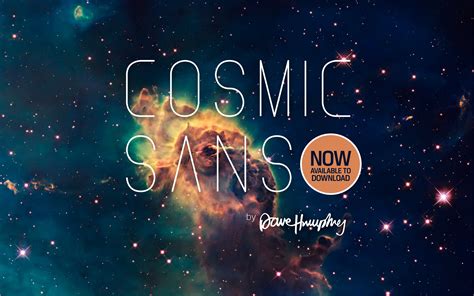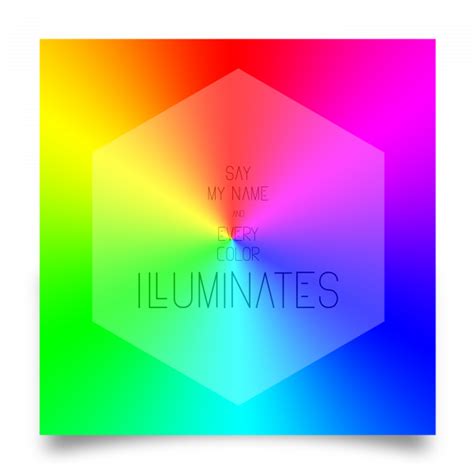
Cosmic Sans Font
Cosmic Sans Font - Comic sans is arguably the best font ever! Comic neue aspires to be the casual script choice for everyone, including the typographically savvy. It was designed by vincent connare in 1994, and is included with microsoft windows. Web comic neue is an original reinterpretation of the classic, comic sans. Comic sans ms is the groovy script font which was first supplied with the windows 95 plus! Although it might be seen as a novelty. Cosmic sans contains 1 styles. Cosmic sans font family was designed by zachary mazur and published by zachary mazur. Web individual styles from $15.00.
Comic sans ms is the groovy script font which was first supplied with the windows 95 plus! Although it might be seen as a novelty. Cosmic sans font family was designed by zachary mazur and published by zachary mazur. Cosmic sans contains 1 styles. Comic sans is arguably the best font ever! Comic neue aspires to be the casual script choice for everyone, including the typographically savvy. Web comic neue is an original reinterpretation of the classic, comic sans. It was designed by vincent connare in 1994, and is included with microsoft windows. Web individual styles from $15.00.
It was designed by vincent connare in 1994, and is included with microsoft windows. Although it might be seen as a novelty. Comic sans is arguably the best font ever! Cosmic sans font family was designed by zachary mazur and published by zachary mazur. Cosmic sans contains 1 styles. Comic neue aspires to be the casual script choice for everyone, including the typographically savvy. Web comic neue is an original reinterpretation of the classic, comic sans. Web individual styles from $15.00. Comic sans ms is the groovy script font which was first supplied with the windows 95 plus!
It was designed by vincent connare in 1994, and is included with microsoft windows. Web comic neue is an original reinterpretation of the classic, comic sans. Cosmic sans contains 1 styles. Web individual styles from $15.00. Comic sans is arguably the best font ever!
Comic sans ms is the groovy script font which was first supplied with the windows 95 plus! Comic sans is arguably the best font ever! Although it might be seen as a novelty. Web individual styles from $15.00. Cosmic sans font family was designed by zachary mazur and published by zachary mazur.
Although it might be seen as a novelty. Comic neue aspires to be the casual script choice for everyone, including the typographically savvy. It was designed by vincent connare in 1994, and is included with microsoft windows. Web individual styles from $15.00. Comic sans is arguably the best font ever!
Cosmic sans font family was designed by zachary mazur and published by zachary mazur. Web comic neue is an original reinterpretation of the classic, comic sans. Cosmic sans contains 1 styles. It was designed by vincent connare in 1994, and is included with microsoft windows. Comic neue aspires to be the casual script choice for everyone, including the typographically savvy.
Cosmic sans contains 1 styles. It was designed by vincent connare in 1994, and is included with microsoft windows. Comic neue aspires to be the casual script choice for everyone, including the typographically savvy. Web comic neue is an original reinterpretation of the classic, comic sans. Cosmic sans font family was designed by zachary mazur and published by zachary mazur.
Cosmic sans font family was designed by zachary mazur and published by zachary mazur. Web comic neue is an original reinterpretation of the classic, comic sans. It was designed by vincent connare in 1994, and is included with microsoft windows. Although it might be seen as a novelty. Comic neue aspires to be the casual script choice for everyone, including.
Cosmic sans font family was designed by zachary mazur and published by zachary mazur. Cosmic sans contains 1 styles. Although it might be seen as a novelty. Comic sans ms is the groovy script font which was first supplied with the windows 95 plus! Web individual styles from $15.00.
Although it might be seen as a novelty. Comic sans is arguably the best font ever! It was designed by vincent connare in 1994, and is included with microsoft windows. Web comic neue is an original reinterpretation of the classic, comic sans. Cosmic sans contains 1 styles.
Cosmic sans contains 1 styles. Comic sans ms is the groovy script font which was first supplied with the windows 95 plus! Although it might be seen as a novelty. Cosmic sans font family was designed by zachary mazur and published by zachary mazur. Web individual styles from $15.00.
Although it might be seen as a novelty. Comic sans is arguably the best font ever! Cosmic sans contains 1 styles. It was designed by vincent connare in 1994, and is included with microsoft windows. Comic sans ms is the groovy script font which was first supplied with the windows 95 plus!
Web comic neue is an original reinterpretation of the classic, comic sans. Web individual styles from $15.00. Although it might be seen as a novelty. Comic sans ms is the groovy script font which was first supplied with the windows 95 plus!
Comic Sans Is Arguably The Best Font Ever!
Cosmic sans contains 1 styles. Comic neue aspires to be the casual script choice for everyone, including the typographically savvy. Cosmic sans font family was designed by zachary mazur and published by zachary mazur.